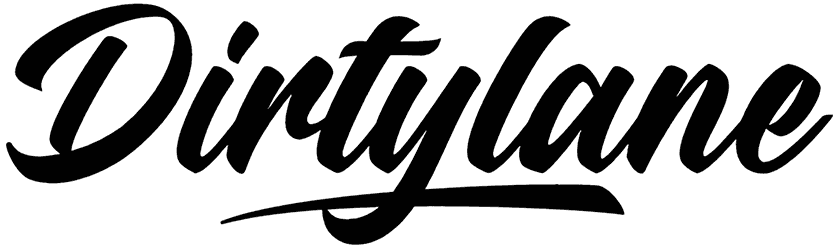
Dirtylane Font
Dirtylane font has that rough street-poster attitude that makes clean layouts look instantly more lived-in. The letters feel worn, loud, and a little rebellious, like they were pulled from a sticker-covered alley wall instead of a neat font menu. That raw texture gives your words more personality before the design even gets going.
Use it for skate merch, grunge posters, underground music covers, tattoo promos, urban clothing tags, or gritty social media graphics. Pair Dirtylane font with torn paper, spray paint marks, concrete backgrounds, or harsh black-and-white photos, and your layout starts feeling properly untamed.